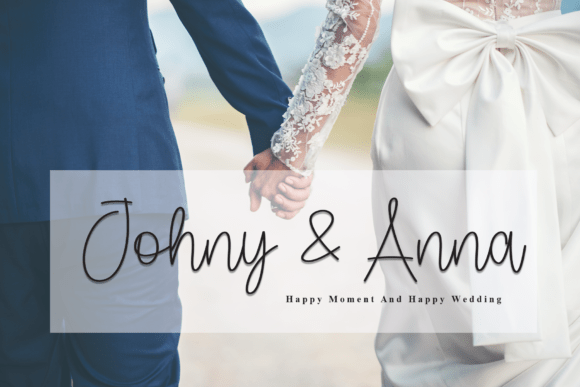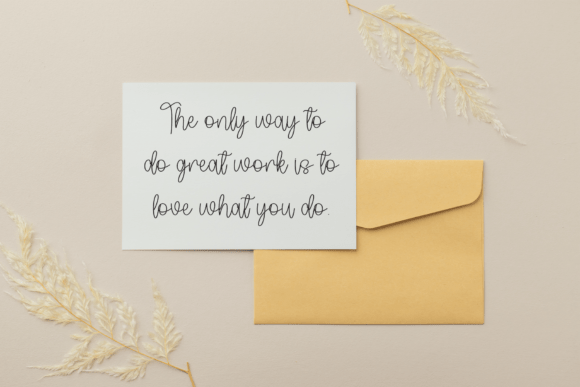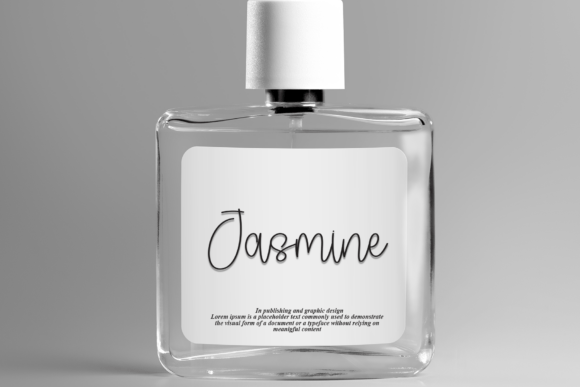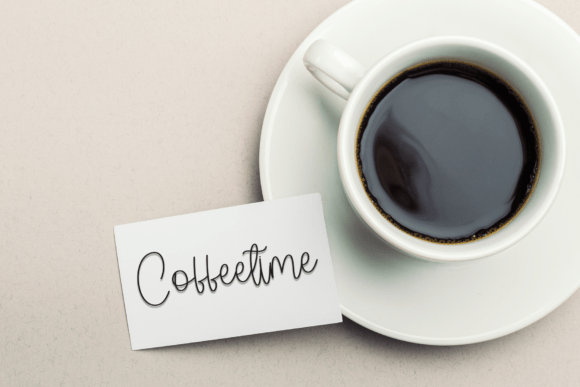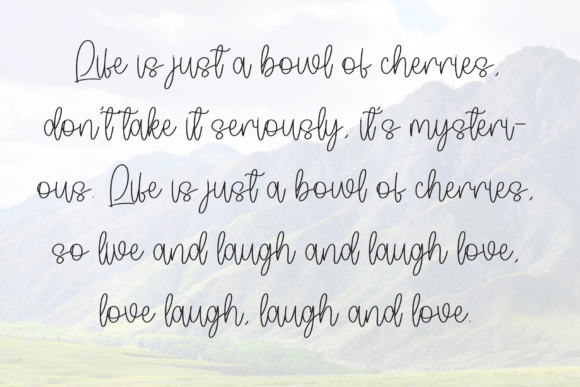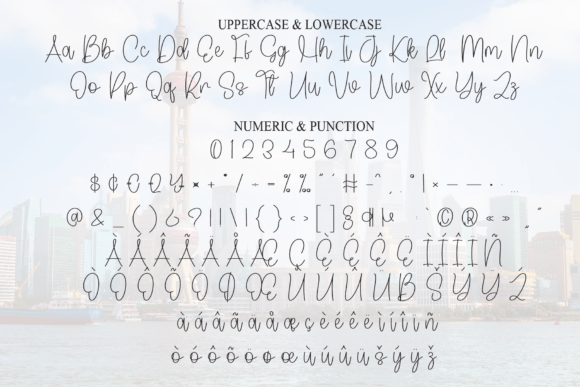
The Elusive Font: A Designer’s Quest for Elegance
I still remember the project like it was yesterday. A client asked for a logo that exuded elegance and sophistication, with a modern twist. I scoured the internet, tried countless font combinations, and even experimented with hand-drawn lettering. But nothing seemed to fit the bill. That was until I stumbled upon Eastern Font, a stylish script font that has since become my go-to for projects requiring a touch of refinement.
An Honest Review of Eastern Font
- ✨ Fluid strokes and graceful curves that give it a hand-drawn feel
- ✅ Carefully balanced letterforms that ensure excellent readability
- 💫 A modern charm that sets it apart from more traditional script fonts
- 🎨 Versatility – perfect for logos, invitations, packaging, and social media graphics
While Eastern Font is an excellent choice, it’s not without its quirks. For instance:
- 🤔 Some users may find the font’s elegance a tad too refined for very casual projects
- ⚠️ It may not be the best choice for body text due to its script nature
A Practical Guide to Using Eastern Font
- Experiment with OpenType features like swashes and stylistic alternates to add personality to your text
The Story Behind Eastern Font
Eastern Font was designed with the intention of capturing the essence of hand-drawn calligraphy with a modern twist. Its creator, a typography enthusiast, aimed to produce a font that would be both elegant and versatile. Through careful attention to detail and a passion for typography, Eastern Font was born – a stylish script font that brings a touch of sophistication to any design.
Q: Is Eastern Font suitable for body text?
A: While Eastern Font is an excellent choice for headings and titles, it may not be the best choice for body text due to its script nature and potential readability issues at smaller sizes.
Q: Does Eastern Font support OpenType features?
A: Yes, Eastern Font supports OpenType features, including swashes, stylistic alternates, and ligatures, allowing for greater typographic flexibility.